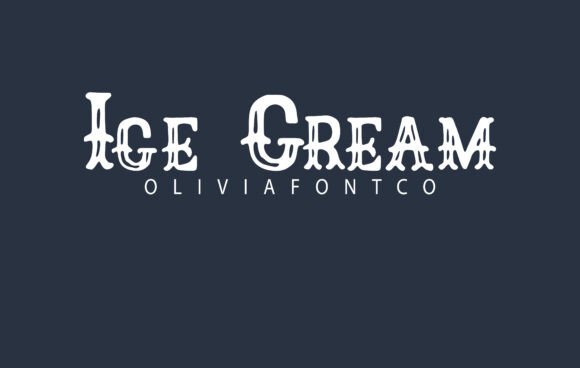
Ice Cream Font: A Nostalgic Delight for Designers
Fonts are more than just letters on a page—they're the flavor of your message. The Ice Cream font is a bold, retro-inspired serif typeface that brings a whimsical and nostalgic charm to any design project. With its drippy, delicious flair and playful curves, it’s like adding a scoop of joy to your visual content. Whether you're crafting summer posters, designing dessert packaging, or looking for a fun headline style, Ice Cream can make your text as appealing as the treat itself.
The Sweet Spot Between Style and Substance
At first glance, the Ice Cream font might seem like it's just for fun. But dig a little deeper, and you’ll find it’s also highly functional in the right context. Its retro feel harks back to classic soda shops and old-school advertisements, making it perfect for brands that want to evoke warmth and familiarity. The drippy details add an artistic touch that sets it apart from more standard fonts, allowing designers to stand out without overcomplicating their work.
Key Characteristics of Ice Cream Font
- Bold Serifs: The thick, elegant serifs give the font a timeless look while maintaining strong visibility.
- Retro-Inspired Design: It channels the charm of vintage typography, reminiscent of 1950s Americana and mid-century branding.
- Drippy Flair: Unique finishing touches like drips and swashes make it ideal for eye-catching headlines and logos.
- High Readability at Larger Sizes: While best suited for display purposes, it remains legible when used in larger formats.
Why Choose Ice Cream for Your Projects?
If you’re working on something seasonal or thematic, especially anything related to food, fun, or nostalgia, Ice Cream could be a game-changer. It helps create a sense of lightheartedness and delight—perfect for businesses in the culinary, entertainment, or lifestyle industries. For marketers and bloggers, this font can help set the tone for a post about summer activities, desserts, or even fashion with a retro twist.
Let’s say you're launching a new ice cream shop. You need visuals that scream “sweet,” “fun,” and “summer.” Using Ice Cream in your signage or social media banners immediately connects your brand to those feelings. Similarly, if you’re designing a music festival poster, this font adds a playful yet stylish edge that appeals to both casual fans and seasoned creatives.
Real-World Use Cases
- Summer Posters: Think beach parties, outdoor concerts, or local fairs. The font’s cheerful aesthetic fits right in.
- Dessert Packaging: From cookie boxes to cupcake labels, Ice Cream can turn simple text into a visual treat.
- Headlines and Titles: Bloggers and website creators often use it for headers where personality matters more than strict readability.
- Merchandise and Branding: T-shirts, mugs, and promotional items benefit from the font’s memorable and unique style.
Here’s a quick example: try using Ice Cream for a blog post titled "The Best Summer Recipes to Beat the Heat." Pair it with a warm yellow background and a blue accent color for a vibrant, summery feel. Or imagine a café logo with the name written in Ice Cream next to a cartoon cone—it instantly feels inviting and full of flavor.
Where to Use It (And Where Not To)
While Ice Cream shines in decorative contexts, it’s not always the best choice for body text. Because of its stylized features, using it in long paragraphs could overwhelm readers and reduce clarity. However, for short phrases, titles, and call-to-action buttons, it works wonders. It’s also great for digital platforms like Instagram stories or YouTube thumbnails, where visual impact is key.
Professionals in graphic design or marketing should consider pairing Ice Cream with a simpler sans-serif font for body copy. This ensures that your message stays clear and easy to read while still benefiting from the retro charm of Ice Cream in your headlines.
Important Considerations Before Choosing Ice Cream
Also, consider your audience. Ice Cream works best for designs targeting adults who appreciate a touch of nostalgia and playfulness. It may not be suitable for formal business documents or professional resumes. Always ask yourself whether the font aligns with your brand identity and the message you want to convey.
So next time you're brainstorming for a summer campaign or designing something that needs a little extra flavor, remember Ice Cream. It’s not just a font—it’s a mood, a memory, and maybe even a metaphor for your creativity melting into something beautiful.